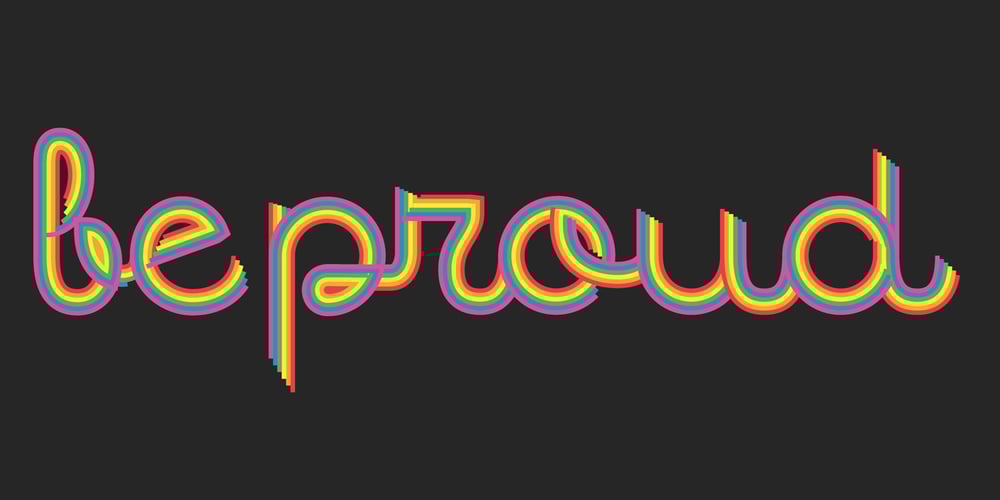
Quaderno Font Family was designed by Giuseppe Salerno, Paco González and published by Resistenza. Quaderno contains 16 styles and family package options. Quaderno is a captivating font that effortlessly marries the elegance of traditional Italian script with the gracefulness of French calligraphy. Its light and monolinear upright design lends a timeless appeal to any project, making it a versatile choice for a wide range of applications.Crafted with precision and care, Quaderno boasts a family of 16 weights, each offering its own unique charm and character. From delicate to bold, this font collection provides ample flexibility for designers seeking to convey various tones and moods in their work. Among these weights is a calligraphic version, inspired by the flat nib technique, adding an extra layer of sophistication and flair to the typeface.Ideal for both middle-length texts and eye-catching headlines, Quaderno strikes a balance between readability and aesthetic appeal. Its connected script flows smoothly across the page, evoking a sense of fluidity and harmony. Whether used in print or digital media, Quaderno lends a touch of refinement to any project it graces.Drawing inspiration from both vernacular and commercial lettering of the 20th century, Quaderno exudes a nostalgic charm that resonates with contemporary audiences. Its versatility makes it equally suitable for editorial layouts, branding materials, and more.Moreover, Quaderno serves as an excellent choice for educational purposes, thanks to its clear legibility and straightforward design. Whether in textbooks, worksheets, or classroom presentations, this font ensures that information is conveyed with clarity and professionalism.Quaderno embodies a fusion of cultural influences and historical styles. Its graceful curves, balanced proportions, and timeless appeal exemplify the enduring power of typography to captivate and inspire.More About Opentype Features: https://bit.ly/opentype-rsz